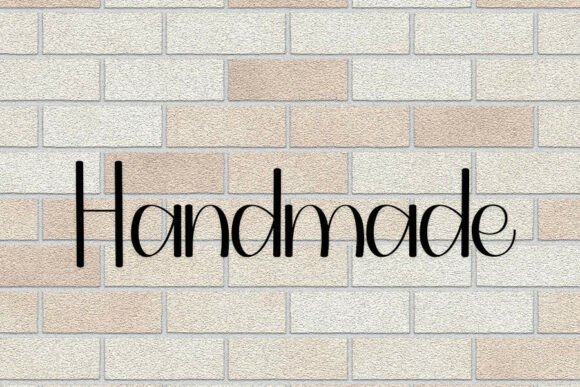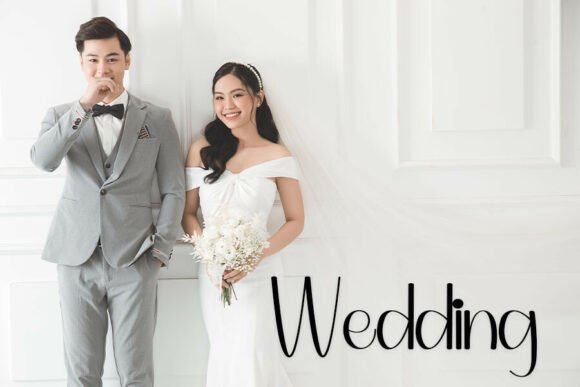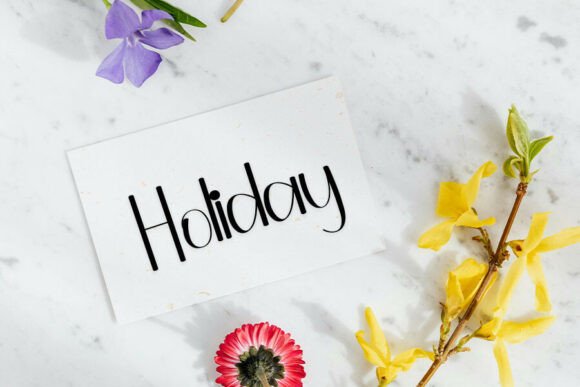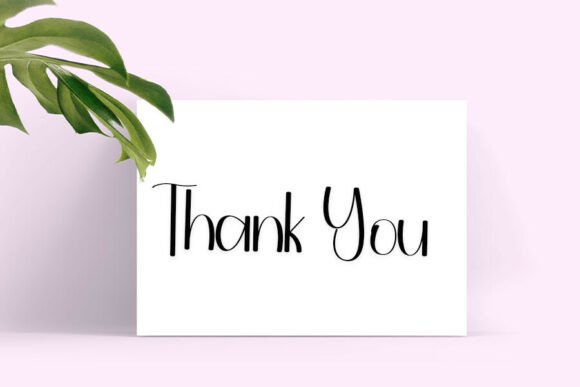
Introducing Blanket Font: The Sweet and Cursive Handwritten Font for Your Design Needs
Are you looking for a font that can add a touch of elegance and romance to your designs? Look no further than Blanket Font, a sweet and cursive handwritten font that is perfect for a variety of design projects. In this article, we’ll explore the features and benefits of Blanket Font, and how it can elevate your designs to the next level.
The Charm of Blanket Font
Blanket Font is a beautiful, handwritten font that exudes a sense of warmth and friendliness. Its gentle, cursive script is perfect for adding a touch of romance and whimsy to your designs. Whether you’re working on a branding project, a wedding invitation, or a marketing promotion, Blanket Font is sure to make your design stand out.
Features of Blanket Font
So, what makes Blanket Font so special? Here are just a few of its key features:
- Sweet and Cursive: Blanket Font has a beautiful, flowing script that is perfect for adding a touch of elegance to your designs.
- Handwritten: The font has a warm, handwritten feel that makes it perfect for designs that need a personal touch.
- Versatile: Blanket Font can be used for a wide range of design projects, from branding and logos to wedding invitations and marketing promotions.
- Fancy yet Casual: The font has a elegant, sophisticated feel, but it’s still casual and approachable enough to work well in a variety of contexts.
Use Cases for Blanket Font
So, what kinds of projects is Blanket Font best suited for? Here are a few ideas to get you started:
- Branding and Logos: Blanket Font is perfect for creating a unique and memorable brand identity.
- Wedding Invitations and Stationery: The font’s romantic, whimsical feel makes it perfect for wedding invitations, save-the-dates, and other stationery.
- Greeting Cards: Blanket Font is a great choice for creating beautiful, heartfelt greeting cards for special occasions.
- Fashion and Lookbooks: The font’s elegant, sophisticated feel makes it perfect for fashion brands and lookbooks.
- Marketing Promotions: Blanket Font can add a touch of elegance and sophistication to your marketing materials, from brochures to flyers.
Why Choose Blanket Font?
So, why should you choose Blanket Font for your design needs? Here are just a few reasons:
- Unique and Memorable: Blanket Font is a unique and memorable font that will help your designs stand out.
- Elegant and Sophisticated: The font has a elegant, sophisticated feel that’s perfect for high-end brands and designs.
- Easy to Read: Despite its elegant feel, Blanket Font is still easy to read, even at small sizes.
- Versatile: The font can be used for a wide range of design projects, from print to digital.
In conclusion, Blanket Font is a beautiful, sweet and cursive handwritten font that is perfect for a variety of design projects. Its elegant, sophisticated feel makes it perfect for high-end brands and designs, while its warm, handwritten feel makes it perfect for designs that need a personal touch. Whether you’re working on a branding project, a wedding invitation, or a marketing promotion, Blanket Font is sure to elevate your designs to the next level.